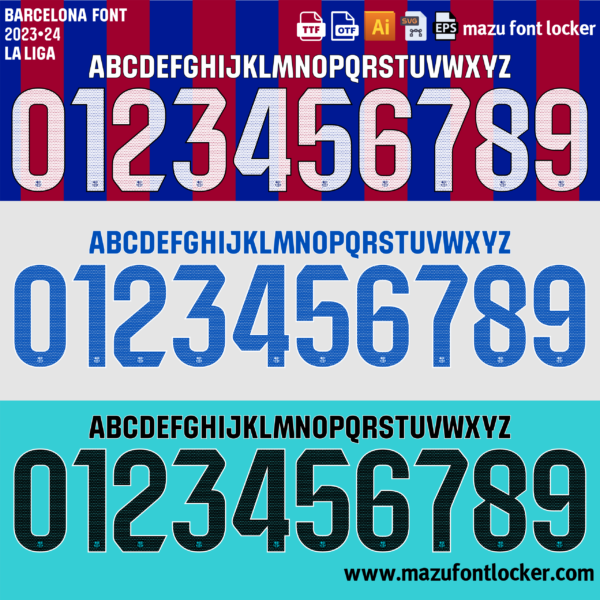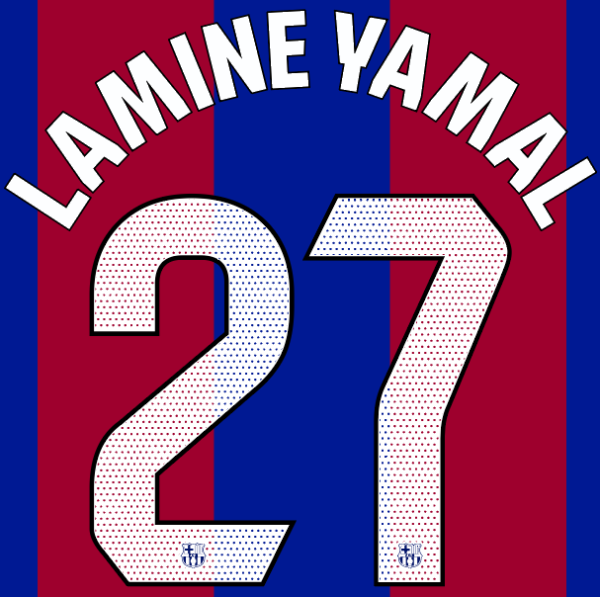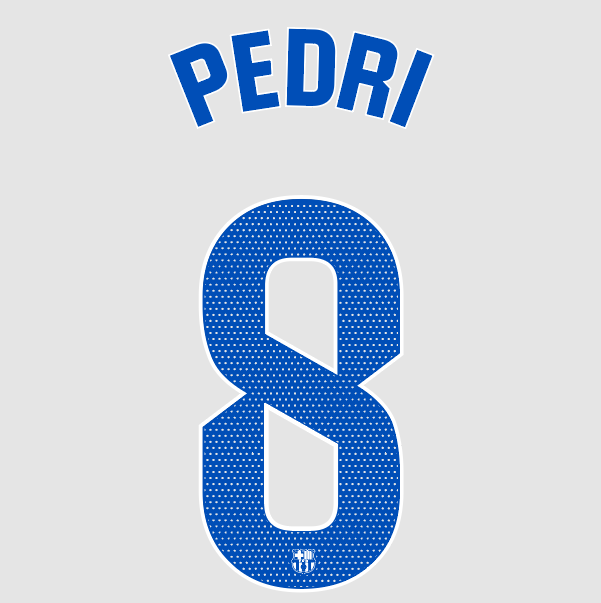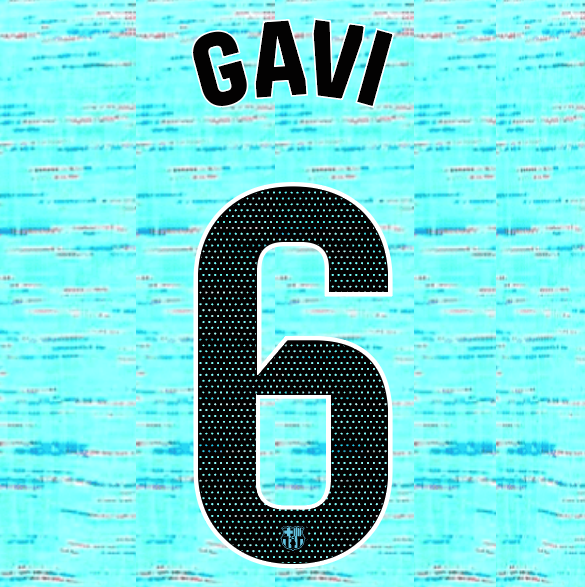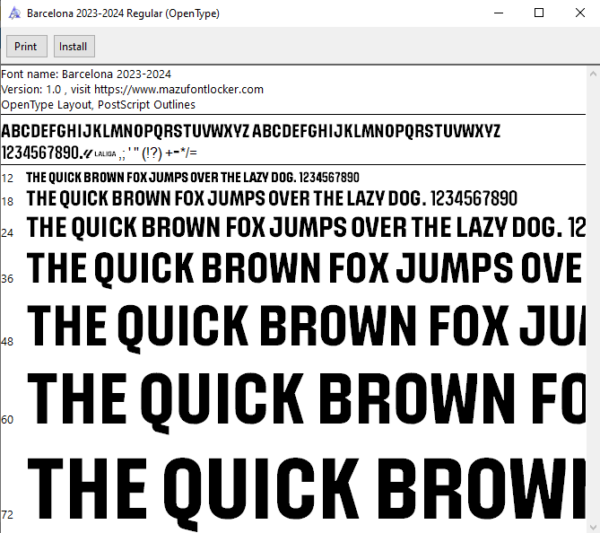
Barcelona 2023-2024 Font Vector – Authentic Blaugrana Typeface
The Barcelona 2023-2024 Font Vector is a premium typeface that accurately recreates the official match lettering worn by FC Barcelona during their triumphant 2023-2024 season. This high-quality vector font kit captures the bold, elegant, and passionate typography that represents the club’s rich Catalan heritage, attacking philosophy, and legendary Camp Nou atmosphere.
Designed for professional designers and passionate Barça supporters, the Barcelona 2023-2024 Font Vector delivers perfect authenticity for creating realistic jersey mockups, fan merchandise, matchday posters, social media graphics, and Spanish football content. It pairs beautifully with the iconic Blaugrana kit, one of the most recognizable club identities in world football.
This font stands out because of its sharp vector precision and strong club identity. Every letter and number is crafted to match the exact style used on the players’ shirts during FC Barcelona’s 2023-2024 La Liga and European campaign. Whether you are creating realistic kit templates or exciting Barça-themed content, the Barcelona 2023-2024 Font Vector gives your designs that authentic Camp Nou atmosphere.
The letterforms in the Barcelona 2023-2024 Font Vector are bold, clean, and highly readable. The strokes feature powerful geometric construction combined with modern athletic styling and traditional Catalan flair, creating a professional appearance that stands out on jerseys while preserving FC Barcelona’s legendary football heritage and competitive spirit.
The numerals feature strong curves and sharp, precise edges, delivering a confident and premium appearance. This vector design ensures flawless scalability and excellent legibility across both print and digital applications.
- Full uppercase A–Z and numbers 0–9 in authentic Barcelona 2023-2024 style
- Includes the exact crest glyph placement used beneath player numbers